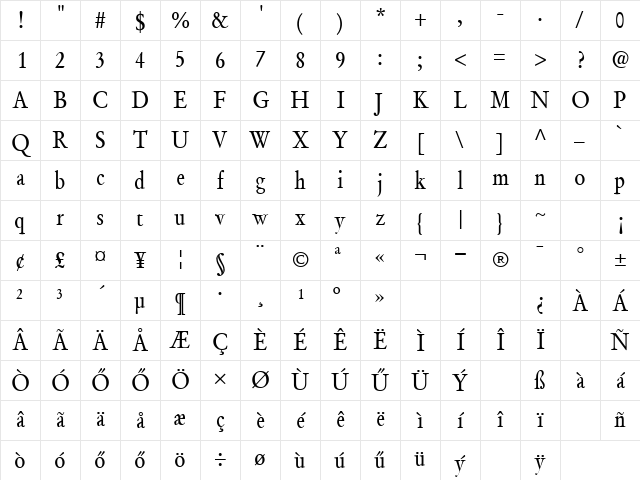
Hu_StempGar Cn Regular
Design Context for Hu_StempGar Cn
Hu_StempGar Cn is a composed and adaptable typeface that performs quietly and consistently across a wide range of design contexts.
Pro Tip: Use Hu_StempGar Cn in both headline and body roles to test its range before committing to a single application.